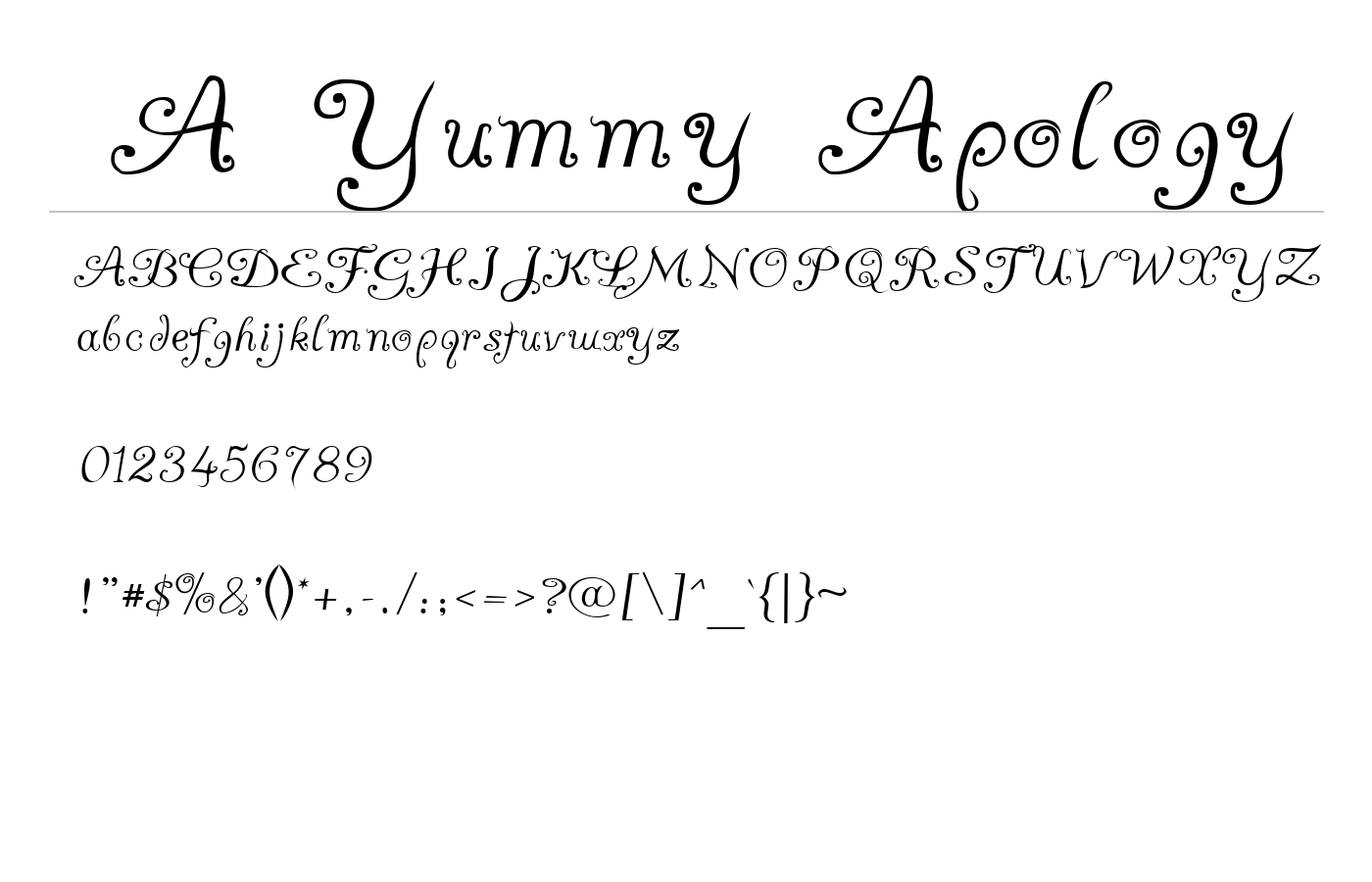
A Yummy Apology is a playful and elegant script font featuring delicate, curly serifs and a light, flowing stroke that gives it a whimsical charm. Its distinct swirls and loops create a vintage, hand-drawn feel, making it ideal for decorative uses like invitations, greeting cards, or branding that seeks a touch of sophistication and personality. This font works best in headlines or display text where its unique character can truly shine.
A Yummy Apology Font